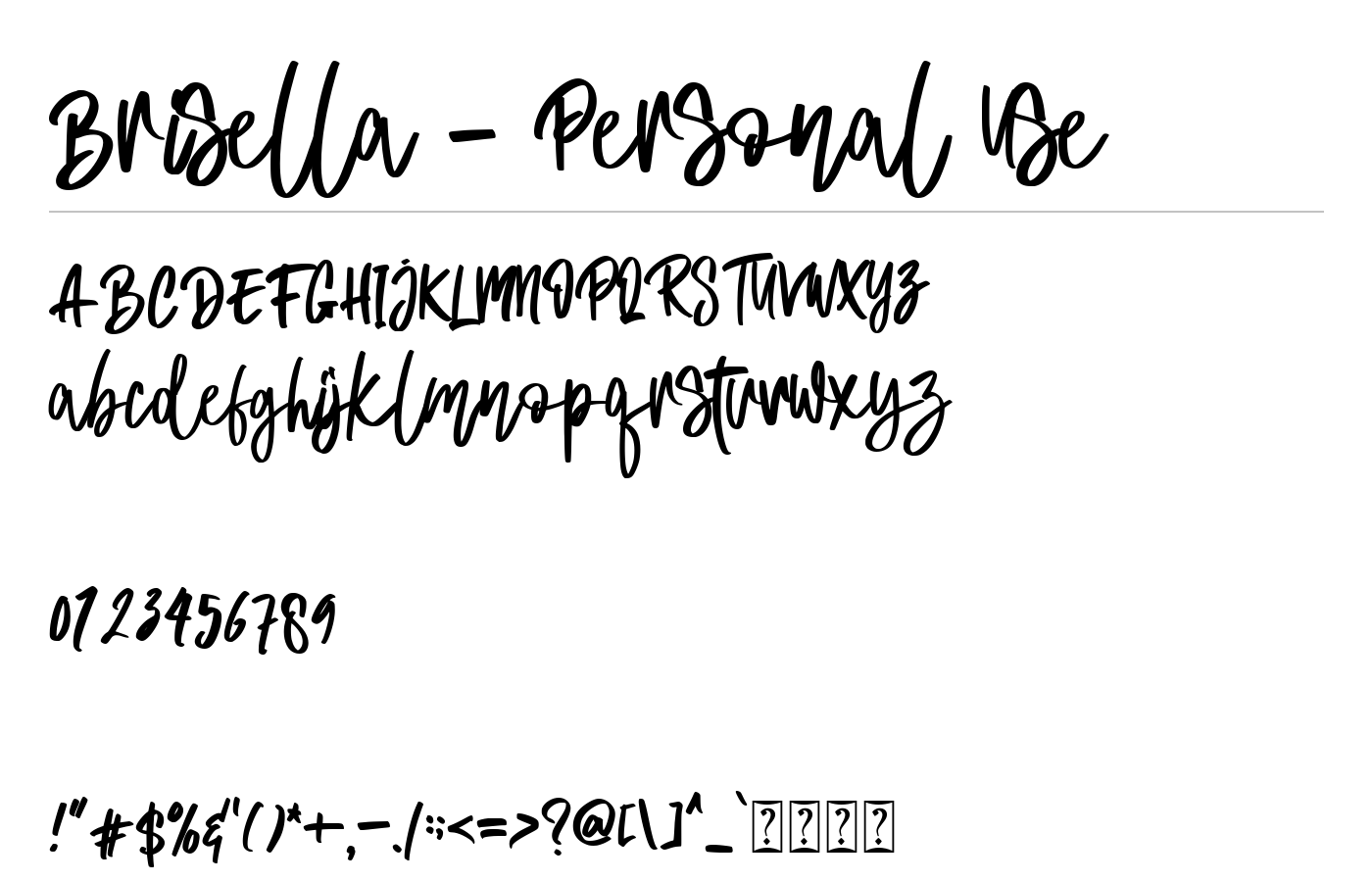
Brisella is a lively, handwritten script font that combines casual charm with a modern touch. Its flowing strokes and varied letter heights create a friendly, approachable feel, making it perfect for personal branding, invitations, and creative projects that seek a warm, expressive vibe. This font stands out in designs where personality and informality are key, adding an artistic flair without sacrificing readability.
Brisella - Personal Use Font
About Brisella - Personal Use Font
| Font family | Brisella - Personal Use Font |